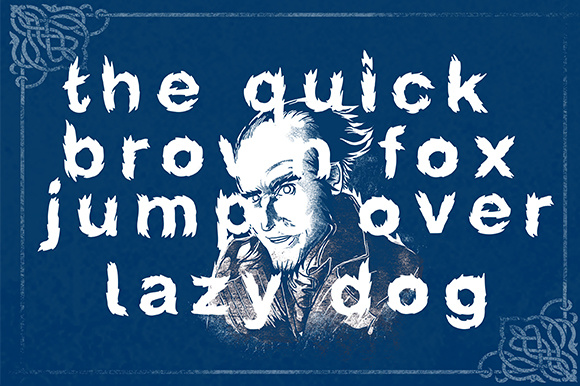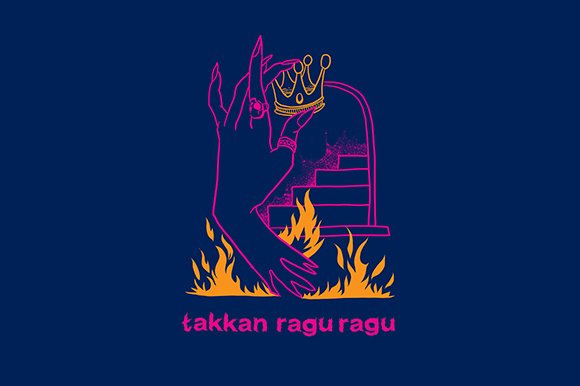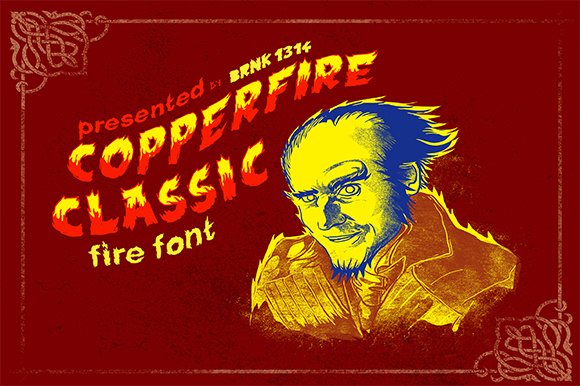
Copperfire Font: Unleash the Power of Elegance and Strength in Your Designs
In the world of typography, fonts play a crucial role in conveying the tone and personality of a design. For designers and crafters looking for a font that exudes both strength and elegance, Copperfire Font is an excellent choice. This versatile font is designed to add a touch of sophistication and wildness to your creative projects, making it perfect for a wide range of applications.
The Unique Charm of Copperfire Font
Copperfire Font boasts a distinctive style that sets it apart from other fonts. Its unique blend of strength and elegance makes it an ideal choice for designers who want to create a lasting impression. The font’s design is characterized by its bold and rugged feel, which is balanced by a touch of refinement and sophistication. This balance makes Copperfire Font suitable for various design projects, from bold and daring to elegant and refined.
Key Features of Copperfire Font
- Strong and Wild Feelings: Copperfire Font is designed to evoke strong and wild feelings, making it perfect for projects that require a bold and daring approach.
- Elegant Touch: Despite its bold nature, Copperfire Font also has an elegant side, which adds a touch of sophistication to your designs.
- Versatility: Copperfire Font can be used in a variety of design projects, including logos, branding, packaging, and more.
- Uppercase and Lowercase Variations: The font features both uppercase and lowercase letters, allowing you to play with different combinations to achieve the perfect casual feel.
Tips for Using Copperfire Font Effectively
To get the most out of Copperfire Font, here are some tips to keep in mind:
- Mix and Match: Experiment with different combinations of uppercase and lowercase letters to create unique and interesting words.
- Balance Bold and Elegant: Balance the bold and rugged feel of Copperfire Font with more elegant design elements to create a harmonious design.
- Use in Headings and Titles: Copperfire Font is perfect for headings and titles, where its bold and attention-grabbing nature can shine.
Who Can Benefit from Copperfire Font?
Copperfire Font is an excellent choice for a wide range of designers and crafters, including:
- Graphic Designers: Copperfire Font is perfect for graphic designers looking to add a touch of strength and elegance to their designs.
- Branding and Identity Designers: The font’s unique style makes it an excellent choice for branding and identity designers who want to create a lasting impression.
- Crafters and Makers: Copperfire Font is also suitable for crafters and makers who want to add a personal touch to their handmade products.
In conclusion, Copperfire Font is a versatile and unique font that can add a touch of strength and elegance to your designs. Its bold and rugged feel, balanced by a touch of refinement and sophistication, makes it perfect for a wide range of design projects. Whether you’re a graphic designer, branding and identity designer, or crafter, Copperfire Font is an excellent choice for anyone looking to create strong and wild feelings in their designs. So why not give Copperfire Font a try and unleash the power of elegance and strength in your designs?